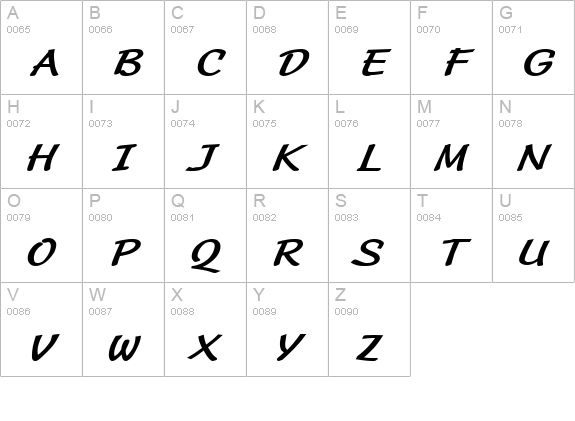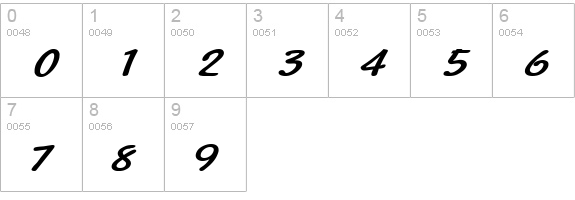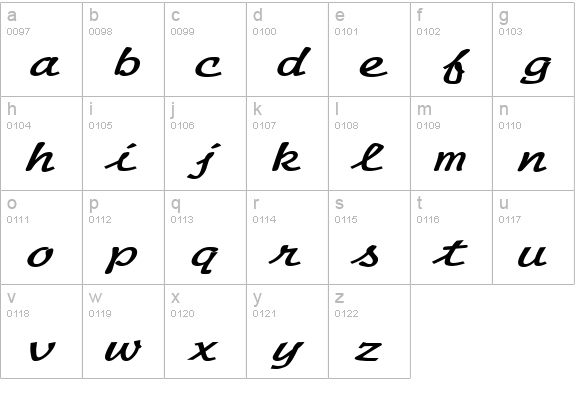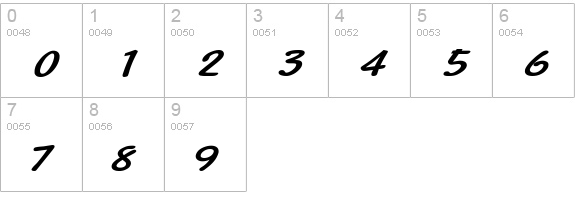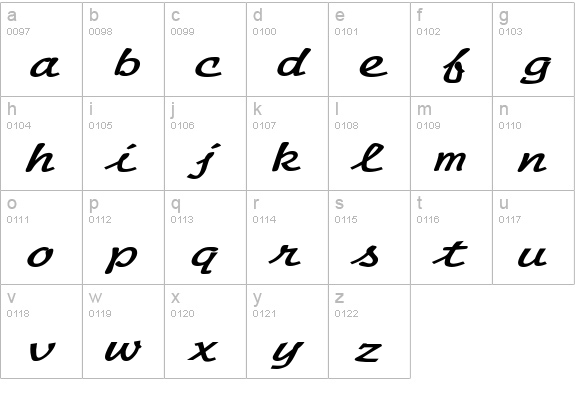
Manuscript Extended BoldItalic is a distinctive, extended-width variant in the Manuscript typeface family \xE2\x80\x94 well suited to design and typography projects.
Manuscript Extended BoldItalic font is a striking and elegant typeface that effortlessly combines boldness with an italicized flair, making it perfect for creating eye-catching designs and adding a touch of sophistication to any project. This unique font captures the essence of handwritten manuscripts, with its flowing curves and intricate details. With Manuscript Extended BoldItalic font, you can effortlessly convey a sense of elegance and refinement in your designs. Whether you're designing invitations, logos, or promotional materials, this font will lend a touch of class and professionalism. Its bold and italicized variations provide versatility, allowing you to experiment with various design elements and create visually stunning compositions. One of the most remarkable aspects of Manuscript Extended BoldItalic font is that it is freely available to download at FontsMarket.com. This means that you can easily access this extraordinary font without any cost barriers, making it an excellent choice for both personal and commercial projects. The availability of this font for free adds even more value to its already impressive features and makes it a must-have for designers, artists, and enthusiasts alike. So, whether you're looking to create captivating headlines, elegant invitations, or unique branding materials, Manuscript Extended BoldItalic font will undoubtedly elevate your designs to new heights. Its combination of boldness and italicized form, along with its availability as a free download, makes it a truly valuable asset in the world of typography. Embrace the beauty and versatility of Manuscript Extended BoldItalic font, and let it bring your designs to life.